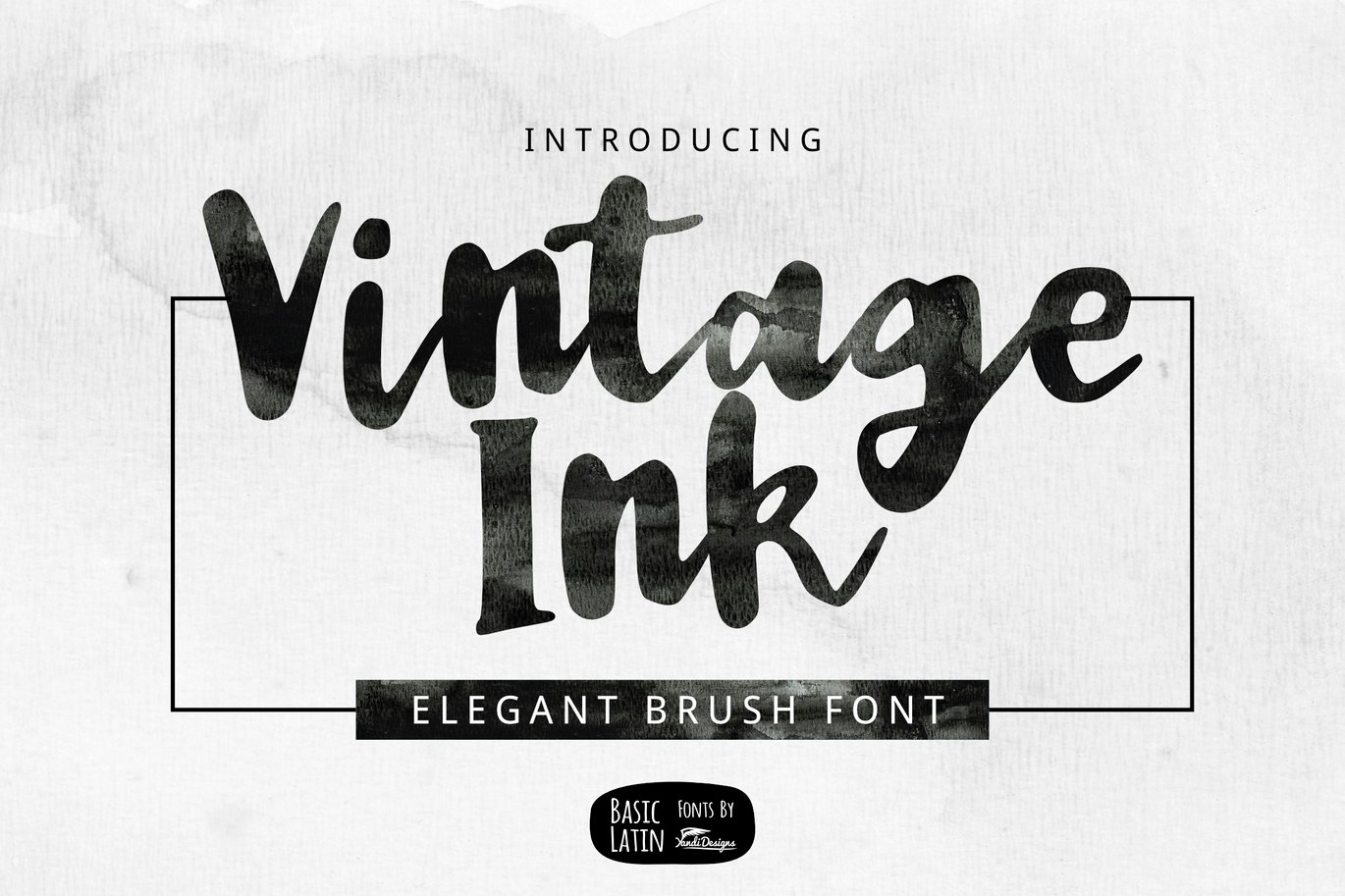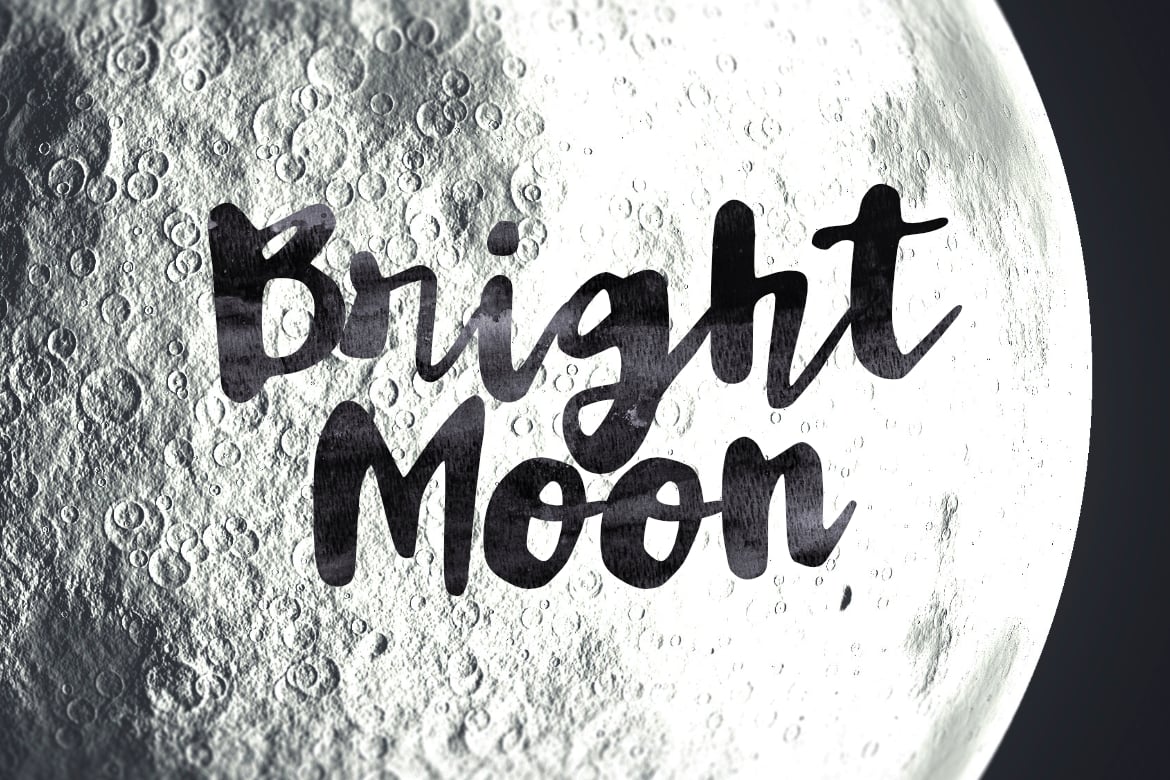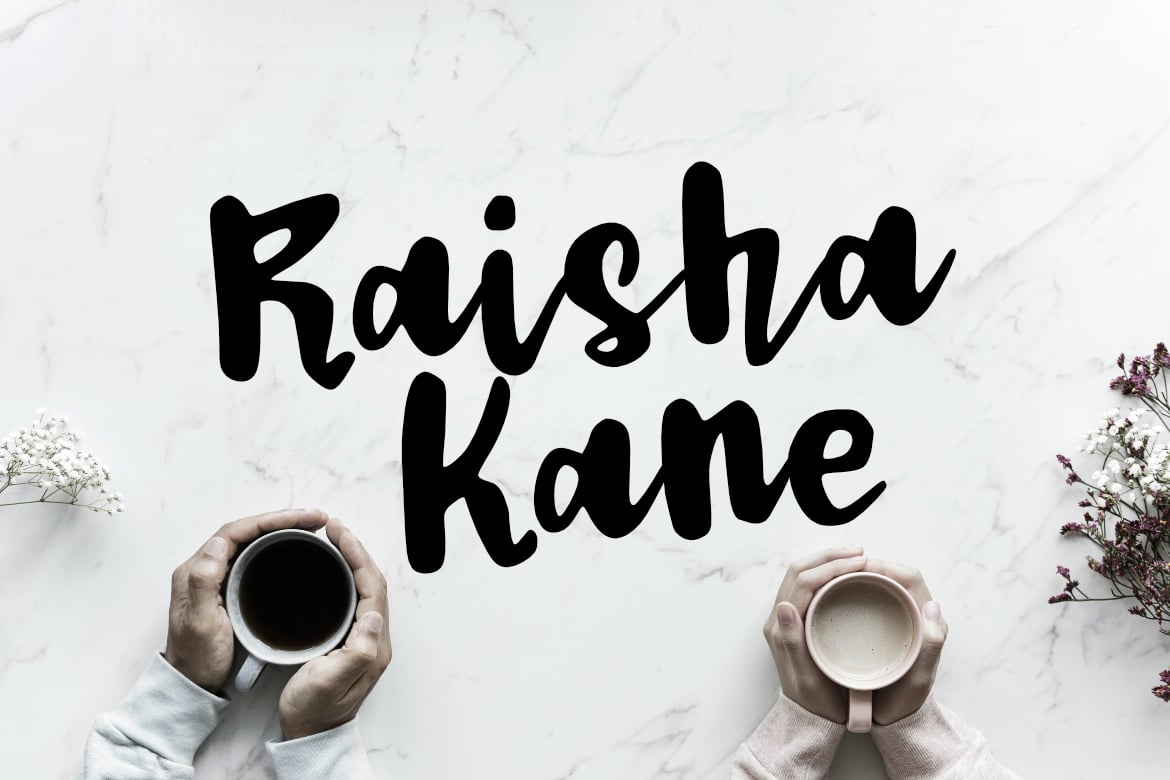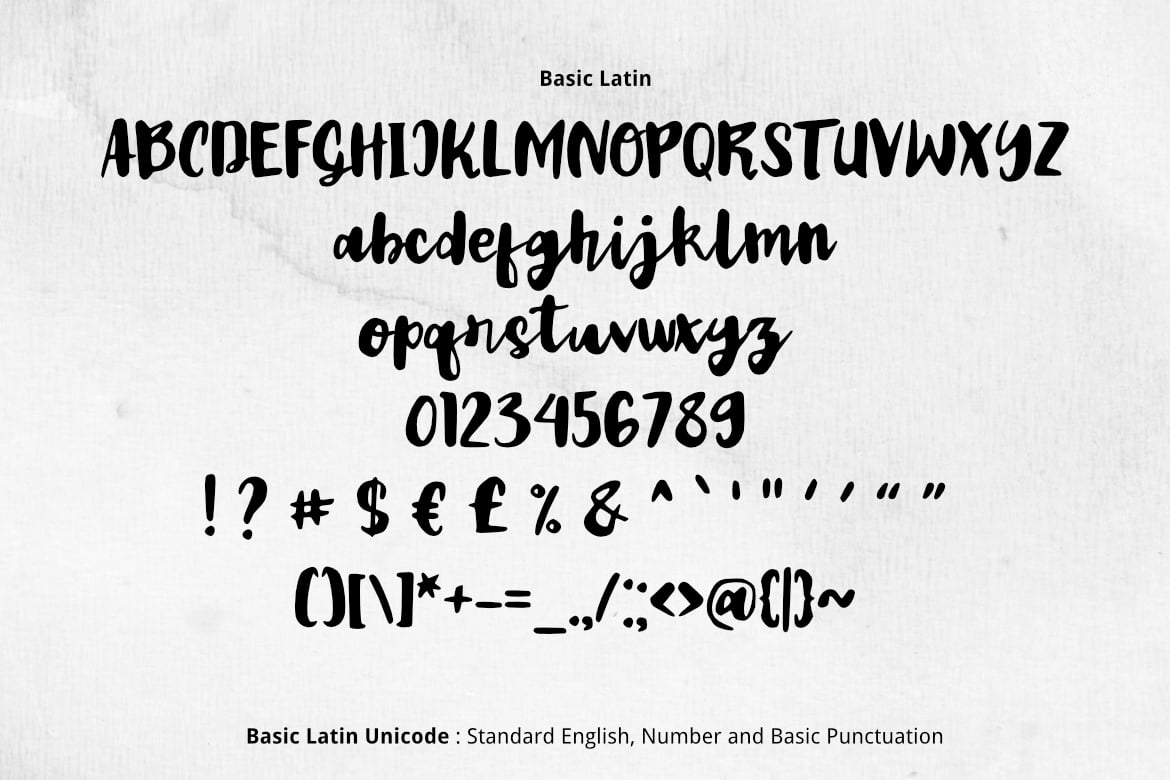
Vintage Ink Font
Simple elegant multipurpose brush font , suitable for many project children book, quotes, logo , heading , title etc.
Basic Latin (Standard English character , number, symbol)